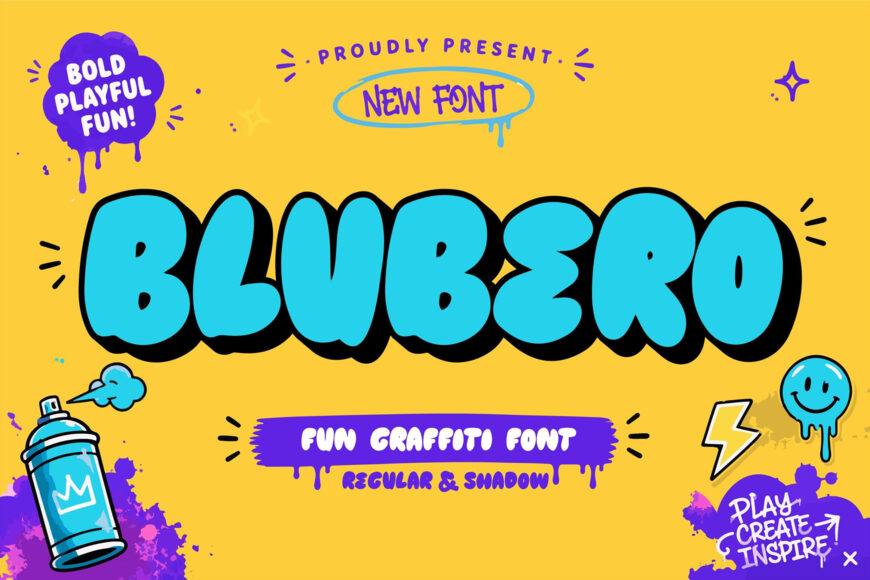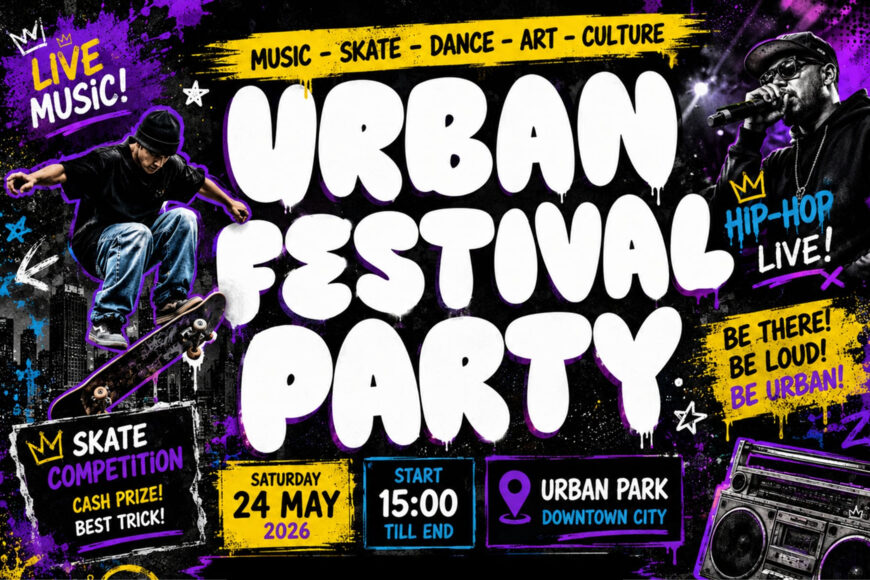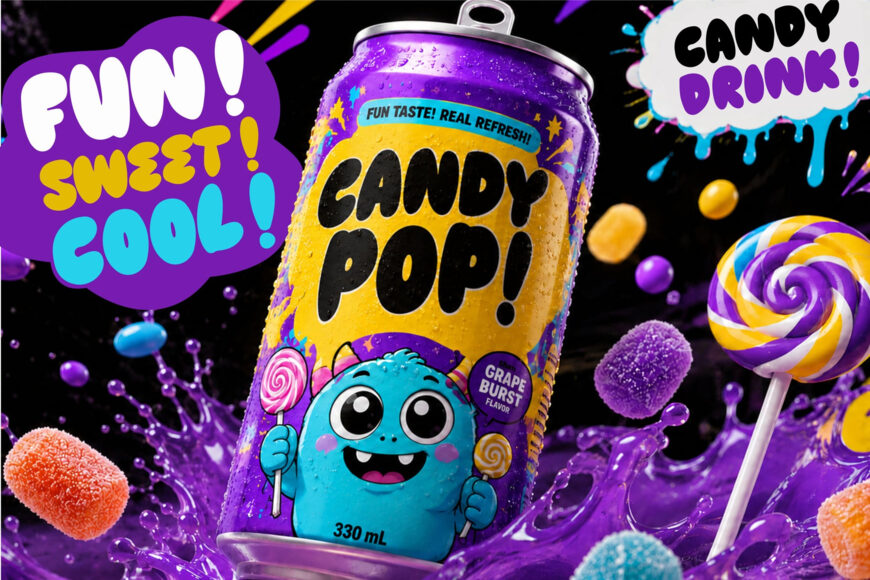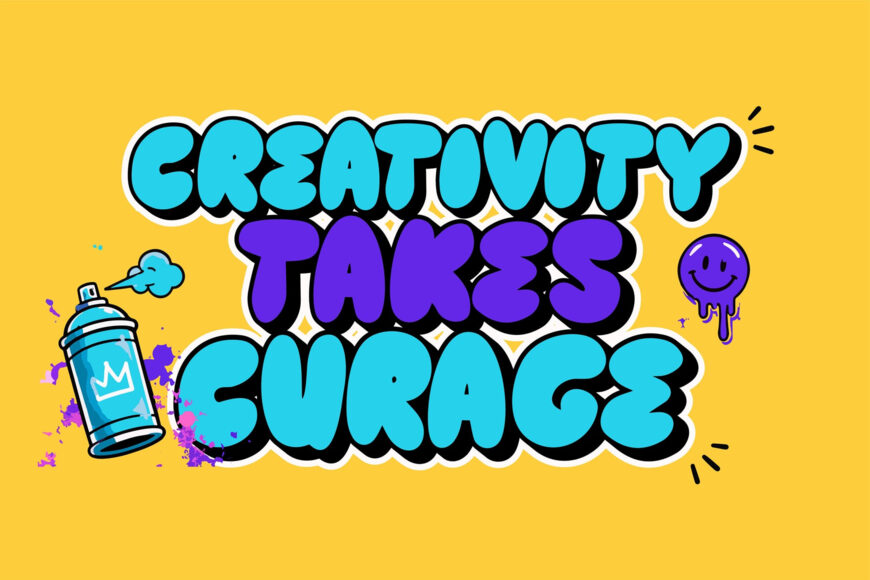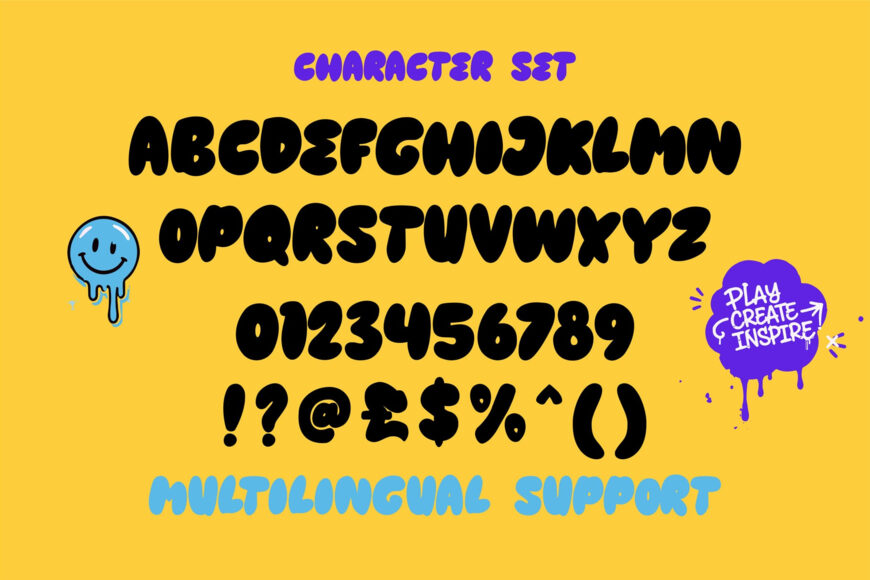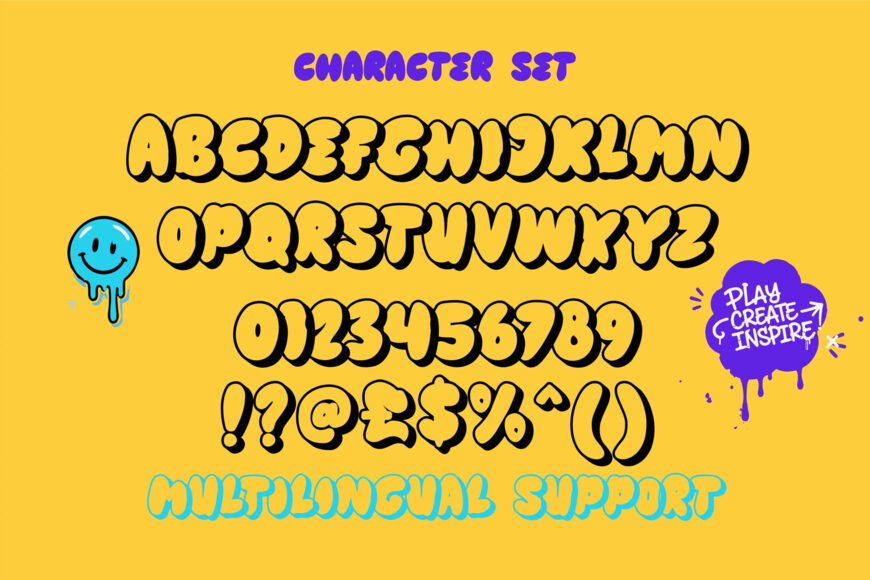
Unleash vibrant street art energy, bubbly 90s nostalgia, and playful graffiti fun with BLUBERO! Designed as a heavy bubble-style graffiti typeface, its extra-thick rounded letterforms feature overlapping shapes, bouncy curves, and a matching Shadow style for instant 3D pop effect.
Perfect for urban streetwear graphics, kids’ game logos, sticker pack designs, hip-hop poster art, party event flyers, and bold Youtube thumbnail headlines!